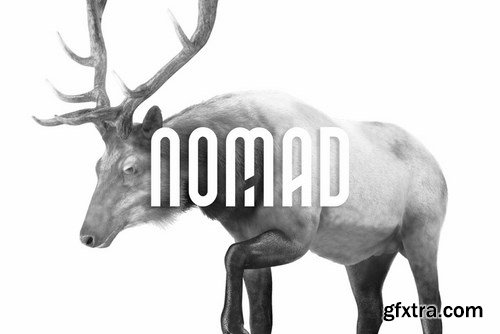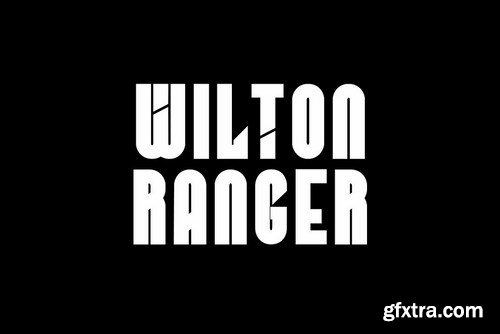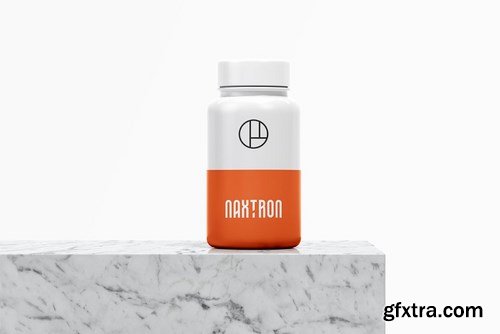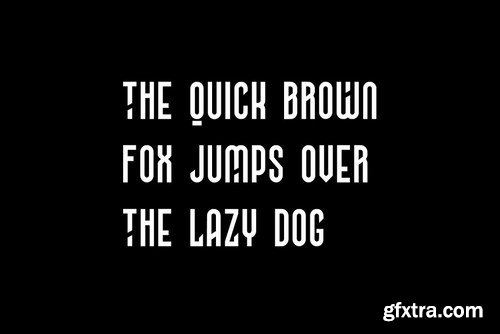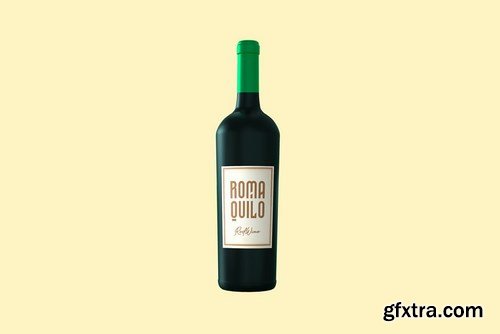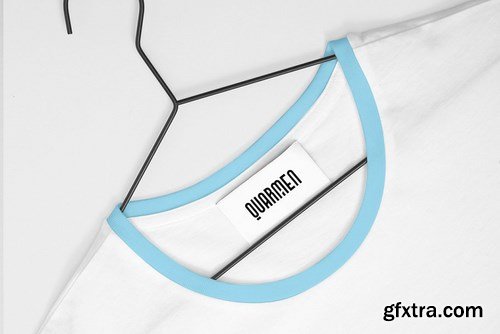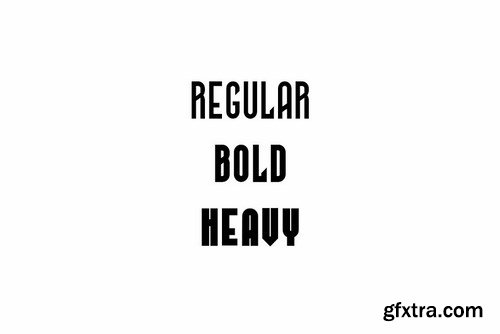
CM - NOMAD - Unique Display Typeface 4405392
NOMAD is the unique all-caps display typeface particularly dedicated for display / headline / branding / logotype usage. NOMAD will be best suited for creating nicely looking logos, brand identities and headlines. Just see the demo images given above for an abstract idea about the capability of this typeface.